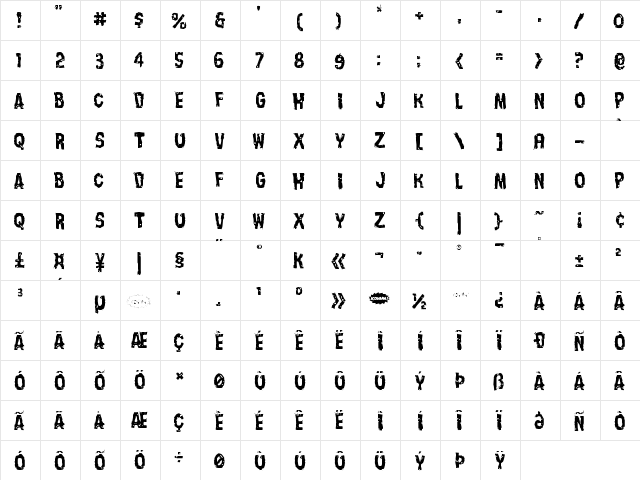
Nightmare Alley Light Light
Design Context for Nightmare Alley Light Typeface
Nightmare Alley Light is a composed and adaptable typeface that performs quietly and consistently across a wide range of design contexts. Its slender proportions lend an understated elegance to any composition.